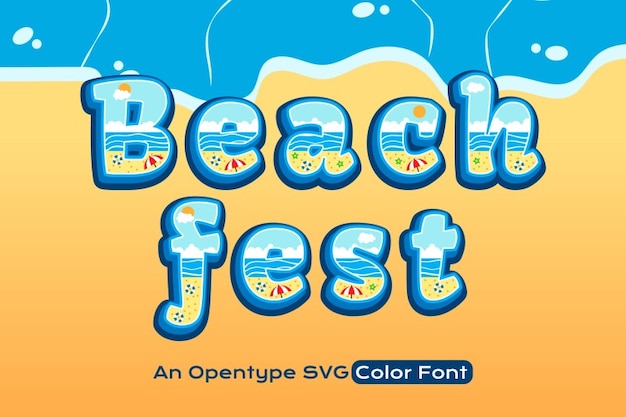
Beach Fest
Beach Fest Font
"Beach Fest" font embodies the carefree spirit of summer celebrations by the sea. With its playful curves and dynamic strokes, it captures the excitement of beachside festivities. Perfect for infusing your designs with the joyous energy of sun, sand, and waves, inviting everyone to join in the fun-filled celebration of summer by the shore.